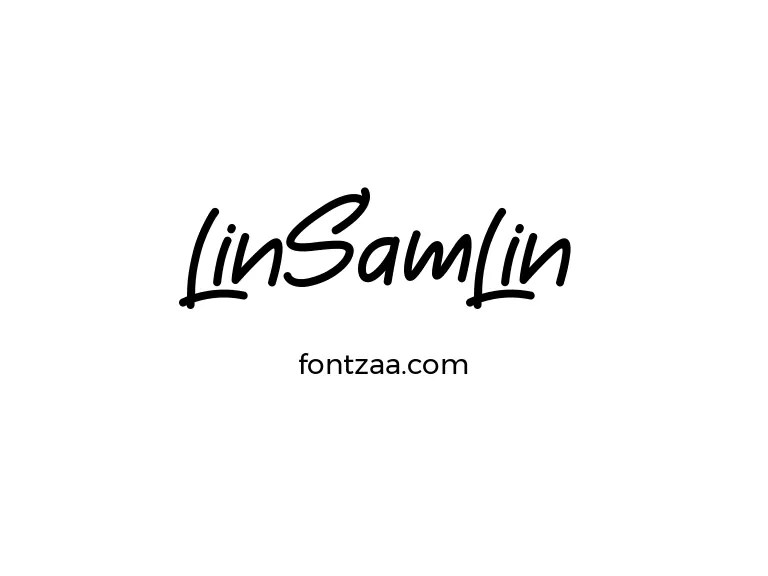
LinSamLin Font offers expressive lettering for designers looking for a elegant visual direction. For projects that need typography with a stronger identity, LinSamLin Font offers a elegant direction suited to creative display work. The font can work as the primary visual element in a minimal layout or as part of a more detailed composition. Using generous space around the lettering can help the details of the typeface remain visible instead of competing with other elements. The typeface can change considerably depending on tracking, scale, alignment, background and surrounding imagery. Creative uses may range from invitations, wedding stationery, signatures, quotes and elegant branding, with different results depending on scale and layout. Keeping secondary typography simple often allows the distinctive qualities of the main font to remain more visible. Designers should evaluate the typeface inside the real project because a standalone preview cannot show every possible visual combination. The designer or publisher information available for this typeface is Christmas Kalingga Abed Nego. The available licensing label is Free for personal use, but redistribution and commercial permissions should always be confirmed from the original source. A few quick layout variations can help determine where the font creates the strongest visual result.
With its distinctive letterforms, LinSamLin Font can introduce a elegant character into headlines, branding and promotional layouts. Its letter shapes become especially noticeable at larger sizes, where spacing and proportions can be explored more clearly. Different color combinations can make the same font feel subtle, energetic, premium or highly decorative. Using generous space around the lettering can help the details of the typeface remain visible instead of competing with other elements. Possible applications include invitations, wedding stationery, signatures, quotes and elegant branding. Keeping secondary typography simple often allows the distinctive qualities of the main font to remain more visible. A clean serif or sans serif companion can handle smaller text while this font remains focused on headlines and key messages. According to the available font information, the typeface is associated with Christmas Kalingga Abed Nego. License details are currently listed as Free for personal use. Users should verify the supplied documentation before using the font in products or paid projects. Its final appearance will depend heavily on the surrounding colors, imagery, spacing and supporting typography.
The visual character of LinSamLin Font makes it an interesting choice for designers working on digital and print projects. Testing several arrangements before choosing the final version can reveal which characteristics of the typeface work best. The font can work as the primary visual element in a minimal layout or as part of a more detailed composition. Different color combinations can make the same font feel subtle, energetic, premium or highly decorative. Its display-focused appearance makes it worth testing in invitations, wedding stationery, signatures, quotes and elegant branding. A clean serif or sans serif companion can handle smaller text while this font remains focused on headlines and key messages. Keeping secondary typography simple often allows the distinctive qualities of the main font to remain more visible. The available source information lists Christmas Kalingga Abed Nego as the designer or publisher. License details are currently listed as Free for personal use. Users should verify the supplied documentation before using the font in products or paid projects. A few quick layout variations can help determine where the font creates the strongest visual result.
LinSamLin Font Family
The LinSamLin Font Family can be explored in multiple compositions by adjusting typography size, spacing and surrounding design elements. With its distinctive letterforms, LinSamLin Font can introduce a elegant character into font-family exploration. Different color combinations can make the same font feel subtle, energetic, premium or highly decorative. The typeface can change considerably depending on tracking, scale, alignment, background and surrounding imagery. Its letter shapes become especially noticeable at larger sizes, where spacing and proportions can be explored more clearly. Its display-focused appearance makes it worth testing in invitations, wedding stationery, signatures, quotes and elegant branding. Print and digital layouts may require different sizing and spacing, so testing the actual output dimensions is recommended. Keeping secondary typography simple often allows the distinctive qualities of the main font to remain more visible. The available source information lists Christmas Kalingga Abed Nego as the designer or publisher. The listed license is Free for personal use, although users should still review the original font package before commercial use. A few quick layout variations can help determine where the font creates the strongest visual result.
| Designer | Christmas Kalingga Abed Nego |
Best Uses for LinSamLin Font
For projects that need typography with a stronger identity, LinSamLin Font offers a elegant direction suited to practical ways designers can use the typeface. The font can work as the primary visual element in a minimal layout or as part of a more detailed composition. The typeface can change considerably depending on tracking, scale, alignment, background and surrounding imagery. Using generous space around the lettering can help the details of the typeface remain visible instead of competing with other elements. Creative uses may range from invitations, wedding stationery, signatures, quotes and elegant branding, with different results depending on scale and layout. A clean serif or sans serif companion can handle smaller text while this font remains focused on headlines and key messages. Designers should evaluate the typeface inside the real project because a standalone preview cannot show every possible visual combination. Source metadata currently associates the font with Christmas Kalingga Abed Nego. The listed license is Free for personal use, although users should still review the original font package before commercial use. Testing the font with the actual project text can provide a much better impression than viewing isolated sample characters.
Branding Ideas With LinSamLin Font
LinSamLin Font stands out through its individual shapes and can become an important visual element in logos, wordmarks and visual identity systems. Different color combinations can make the same font feel subtle, energetic, premium or highly decorative. Testing several arrangements before choosing the final version can reveal which characteristics of the typeface work best. The font can work as the primary visual element in a minimal layout or as part of a more detailed composition. Its display-focused appearance makes it worth testing in invitations, wedding stationery, signatures, quotes and elegant branding. Designers should evaluate the typeface inside the real project because a standalone preview cannot show every possible visual combination. A clean serif or sans serif companion can handle smaller text while this font remains focused on headlines and key messages. According to the available font information, the typeface is associated with Christmas Kalingga Abed Nego. License details are currently listed as Free for personal use. Users should verify the supplied documentation before using the font in products or paid projects. Experimenting directly in the intended design is usually the best way to judge whether the typeface suits the project.
LinSamLin Font in Digital and Poster Design
LinSamLin Font stands out through its individual shapes and can become an important visual element in posters, campaigns, thumbnails and promotional content. Using generous space around the lettering can help the details of the typeface remain visible instead of competing with other elements. Testing several arrangements before choosing the final version can reveal which characteristics of the typeface work best. Its letter shapes become especially noticeable at larger sizes, where spacing and proportions can be explored more clearly. Its display-focused appearance makes it worth testing in invitations, wedding stationery, signatures, quotes and elegant branding. Print and digital layouts may require different sizing and spacing, so testing the actual output dimensions is recommended. Previewing the final layout on both large and small screens helps identify spacing and readability problems early. The designer or publisher information available for this typeface is Christmas Kalingga Abed Nego. License details are currently listed as Free for personal use. Users should verify the supplied documentation before using the font in products or paid projects. A few quick layout variations can help determine where the font creates the strongest visual result.
Projects That Suit LinSamLin Font
For projects that need typography with a stronger identity, LinSamLin Font offers a elegant direction suited to different creative applications for the font. Different color combinations can make the same font feel subtle, energetic, premium or highly decorative. Testing several arrangements before choosing the final version can reveal which characteristics of the typeface work best. The typeface can change considerably depending on tracking, scale, alignment, background and surrounding imagery. Possible applications include invitations, wedding stationery, signatures, quotes and elegant branding. Print and digital layouts may require different sizing and spacing, so testing the actual output dimensions is recommended. Designers should evaluate the typeface inside the real project because a standalone preview cannot show every possible visual combination. According to the available font information, the typeface is associated with Christmas Kalingga Abed Nego. The available licensing label is Free for personal use, but redistribution and commercial permissions should always be confirmed from the original source. Its final appearance will depend heavily on the surrounding colors, imagery, spacing and supporting typography.
Find More Fonts Like LinSamLin Font
For projects that need typography with a stronger identity, LinSamLin Font offers a elegant direction suited to discovering alternatives and related typography. The font can work as the primary visual element in a minimal layout or as part of a more detailed composition. Testing several arrangements before choosing the final version can reveal which characteristics of the typeface work best. Its letter shapes become especially noticeable at larger sizes, where spacing and proportions can be explored more clearly. Its display-focused appearance makes it worth testing in invitations, wedding stationery, signatures, quotes and elegant branding. Print and digital layouts may require different sizing and spacing, so testing the actual output dimensions is recommended. A clean serif or sans serif companion can handle smaller text while this font remains focused on headlines and key messages. Source metadata currently associates the font with Christmas Kalingga Abed Nego. The listed license is Free for personal use, although users should still review the original font package before commercial use. Its final appearance will depend heavily on the surrounding colors, imagery, spacing and supporting typography. Explore more typography on Fontzaa or browse the 100% Free Fonts collection.
How to Pair LinSamLin Font With Other Fonts
With its distinctive letterforms, LinSamLin Font can introduce a elegant character into combining the display font with supporting typefaces. Testing several arrangements before choosing the final version can reveal which characteristics of the typeface work best. Its letter shapes become especially noticeable at larger sizes, where spacing and proportions can be explored more clearly. Using generous space around the lettering can help the details of the typeface remain visible instead of competing with other elements. Possible applications include invitations, wedding stationery, signatures, quotes and elegant branding. A clean serif or sans serif companion can handle smaller text while this font remains focused on headlines and key messages. Keeping secondary typography simple often allows the distinctive qualities of the main font to remain more visible. The designer or publisher information available for this typeface is Christmas Kalingga Abed Nego. The listed license is Free for personal use, although users should still review the original font package before commercial use. A few quick layout variations can help determine where the font creates the strongest visual result.